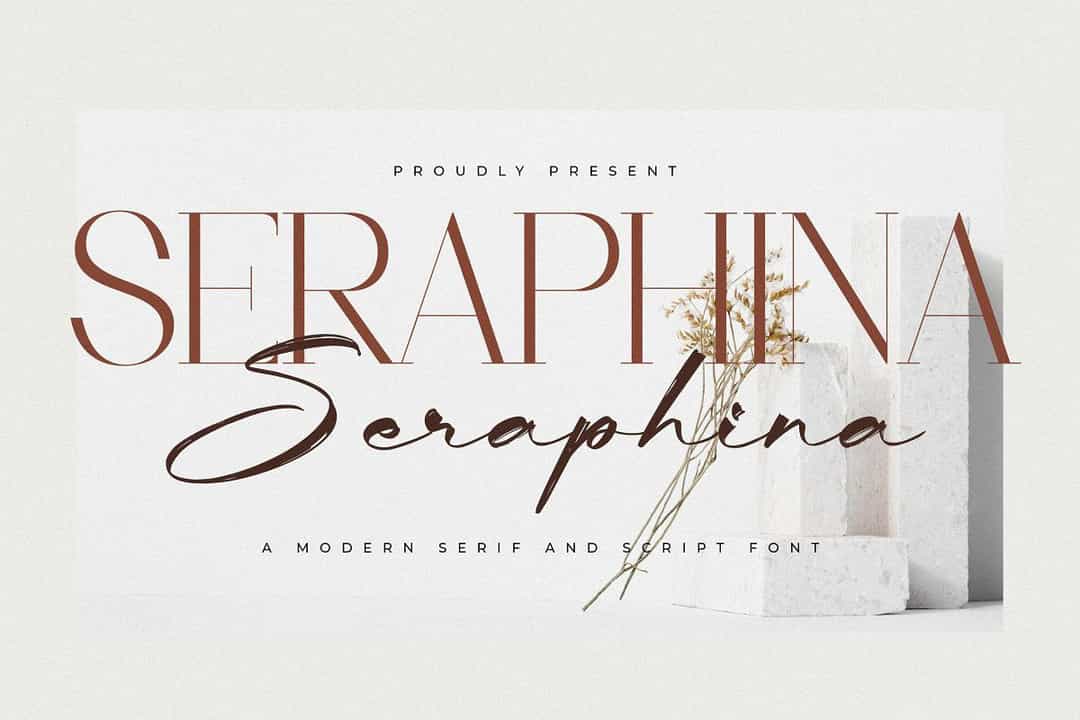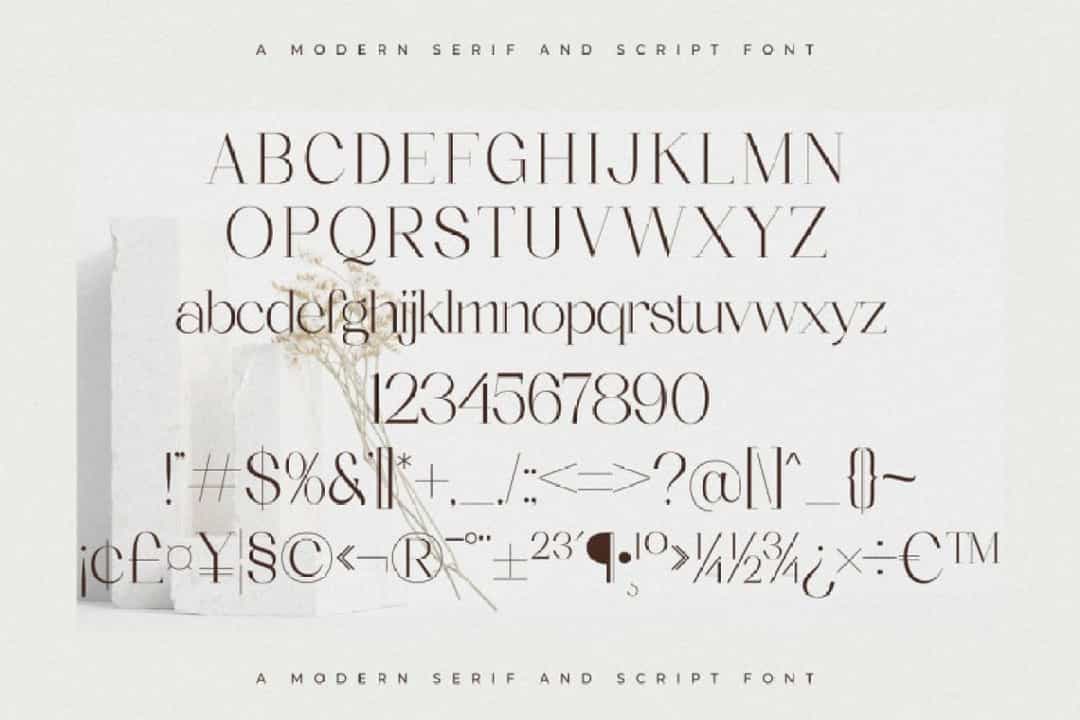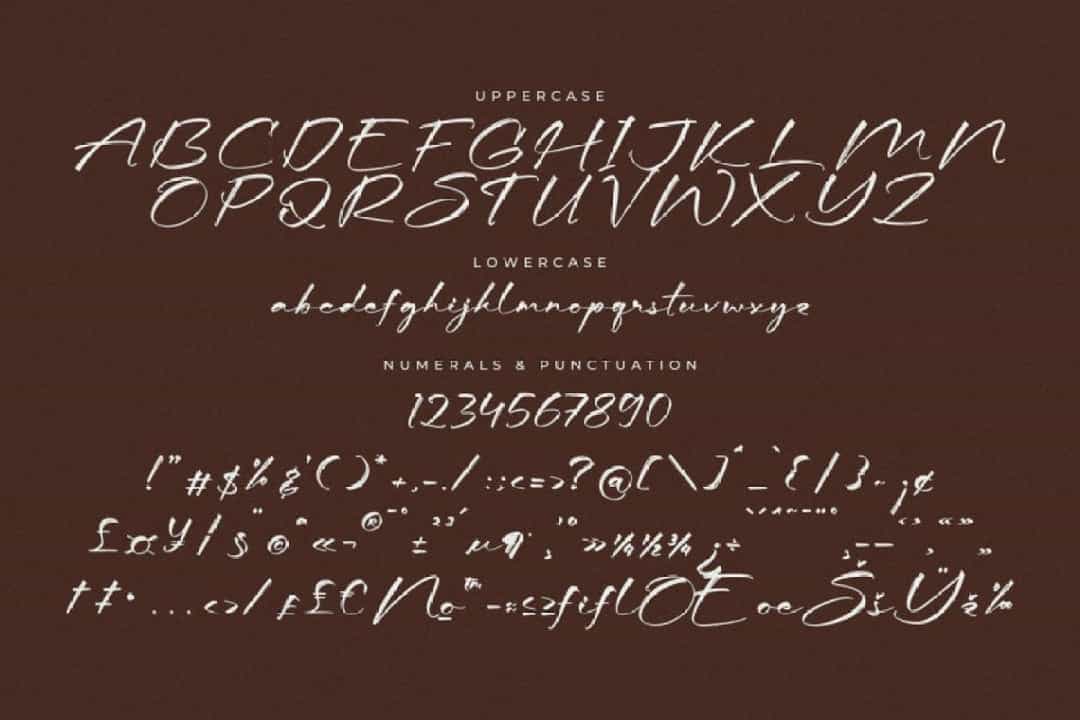
Discover Seraphina Font, part of the Brush Serif collection—a versatile and unique font perfect for adding a personal touch to your projects. Download it for free and enjoy crafting designs with style, from invitations to social media posts. This font is available exclusively for personal use, giving you the freedom to create without limits. Unlock your creativity with Seraphina Font today!
Seraphina Font duo by Storytype offers both serif and script typefaces with distinct styles and contemporary appearance. Perfect for creating classy logos, book or movie titles, fashion brands magazine covers, clothes lettering quotes or much more, this font duo makes for an impressive and elegant presentation.